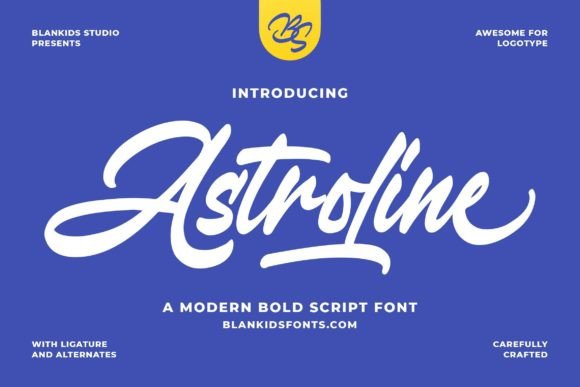
Astroline Font: Elevate Your Brand with a Modern Bold Script
In the world of typography, fonts play a crucial role in shaping the identity of a brand. A well-designed font can instantly convey a message, evoke emotions, and create a lasting impression. If you’re looking for a font that exudes professionalism, modernity, and style, look no further than Astroline Font. In this article, we’ll delve into the features, benefits, and uses of Astroline, a modern bold script font that’s perfect for any professional project.
What is Astroline Font?
Astroline is a modern bold script font designed for professionals who want to create a lasting impression. This font is perfect for branding, logotype, comic, watermarks, poster, promotions, product packaging, and more. Its clean script-style design makes it versatile and suitable for a wide range of applications.
Key Features of Astroline Font
- Modern Clean Script-Style Design: Every letter in Astroline has a modern clean script-style design that gives it a fresh and contemporary look.
- Regular Style: This font comes in a regular style, making it easy to read and use in various applications.
- Bold and Eye-Catching: Astroline is a bold font that’s designed to grab attention and make a statement.
- Professional and Versatile: This font is perfect for professional projects, including branding, logotype, comic, watermarks, poster, promotions, product packaging, and more.
Benefits of Using Astroline Font
Using Astroline Font offers several benefits, including:
- Instant Recognition: The bold and eye-catching design of Astroline makes it perfect for creating a lasting impression and gaining instant recognition.
- Professionalism: This font exudes professionalism and modernity, making it suitable for businesses and individuals who want to create a professional image.
- Versatility: Astroline can be used in a wide range of applications, from branding and logotype to comic, watermarks, poster, promotions, and product packaging.
- Easy to Read: The regular style of Astroline makes it easy to read, even at small sizes.
Uses of Astroline Font
Astroline Font is perfect for a variety of applications, including:
- Branding: Use Astroline to create a bold and eye-catching logo that instantly conveys your brand message.
- Logotype: This font is perfect for creating a professional logotype that reflects your brand’s personality.
- Comic: Astroline can be used to create comic books, graphic novels, and other cartoon-style publications.
- Watermarks: Use Astroline to create watermarks that add a touch of professionalism to your images and documents.
- Poster: This font is perfect for creating eye-catching posters that grab attention and convey a message.
- Promotions: Use Astroline to create promotional materials, such as flyers, brochures, and banners.
- Product Packaging: Astroline can be used to create labels, packaging, and other product materials that require a bold and eye-catching font.
Tips for Using Astroline Font
Here are some tips for using Astroline Font effectively:
- Use it Boldly: Astroline is a bold font, so use it boldly to make a statement.
- Experiment with Colors: Try out different colors to see what works best with Astroline.
- Pair it with Other Fonts: Experiment with pairing Astroline with other fonts to create a unique and visually appealing combination.
- Use it Consistently: Use Astroline consistently across all your marketing materials to create a cohesive brand image.
In conclusion, Astroline Font is a modern bold script font that’s perfect for any professional project. Its clean script-style design, regular style, and bold and eye-catching appearance make it versatile and suitable for a wide range of applications. By using Astroline, you can create a lasting impression, convey professionalism, and elevate your brand to the next level.
- What is Astroline Font? Astroline is a modern bold script font made for any professional project branding.
- What style does Astroline come in? Astroline comes in a regular style.
- What is Astroline perfect for? Astroline is perfect for branding, logotype, comic, watermarks, poster, promotions, product packaging, and more.